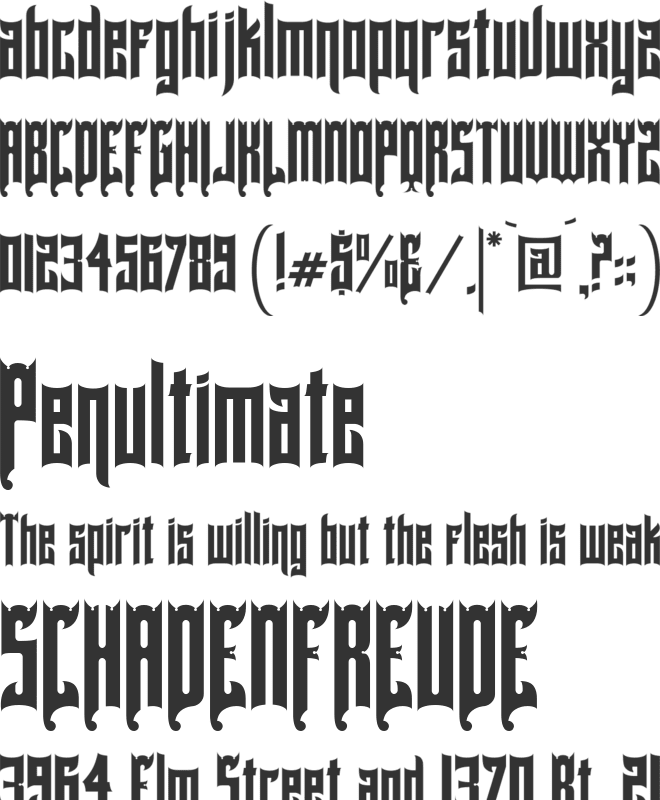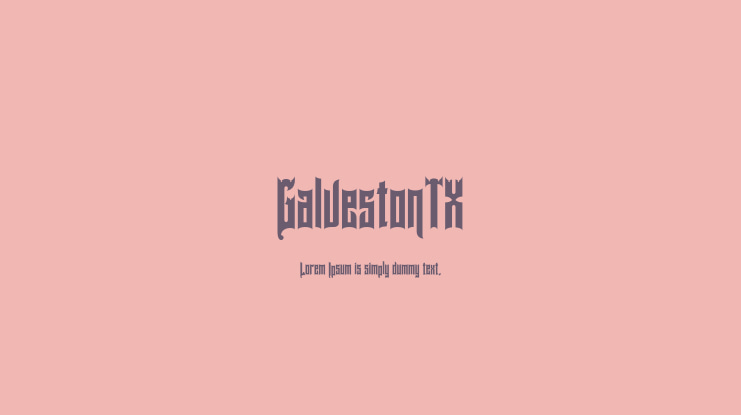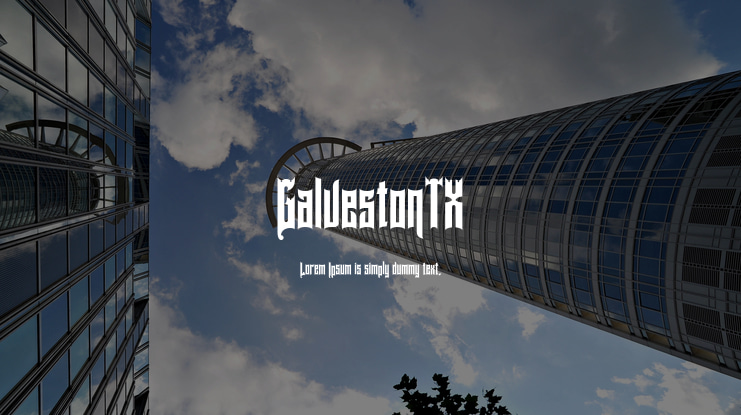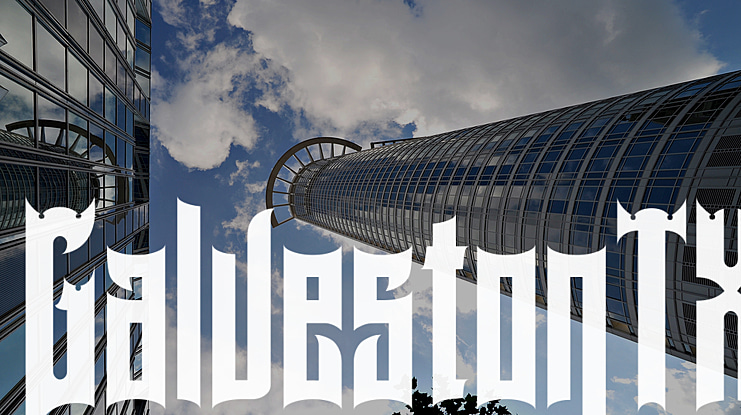
GalvestonTX Font
GalvestonTX is derived from a Sanborn Insurance Map cover published in 1912 for the city of Galveston, Texas. It is my first font and hopefully a loving homage to the works of the artist who produced the original on which it is based. At this stage I've included limited language support, with a view to expanding this at a later stage. GalvestonTX is a labour of love & learning and offered free with an understanding that should you as a user, use it for commercial purposes, you will have the good grace to spread some of the love with the author With huge thanks and grateful acknowledgement to all the help, advice and encouragement received from the citizens of Zombieland, without whom this would never have happened.